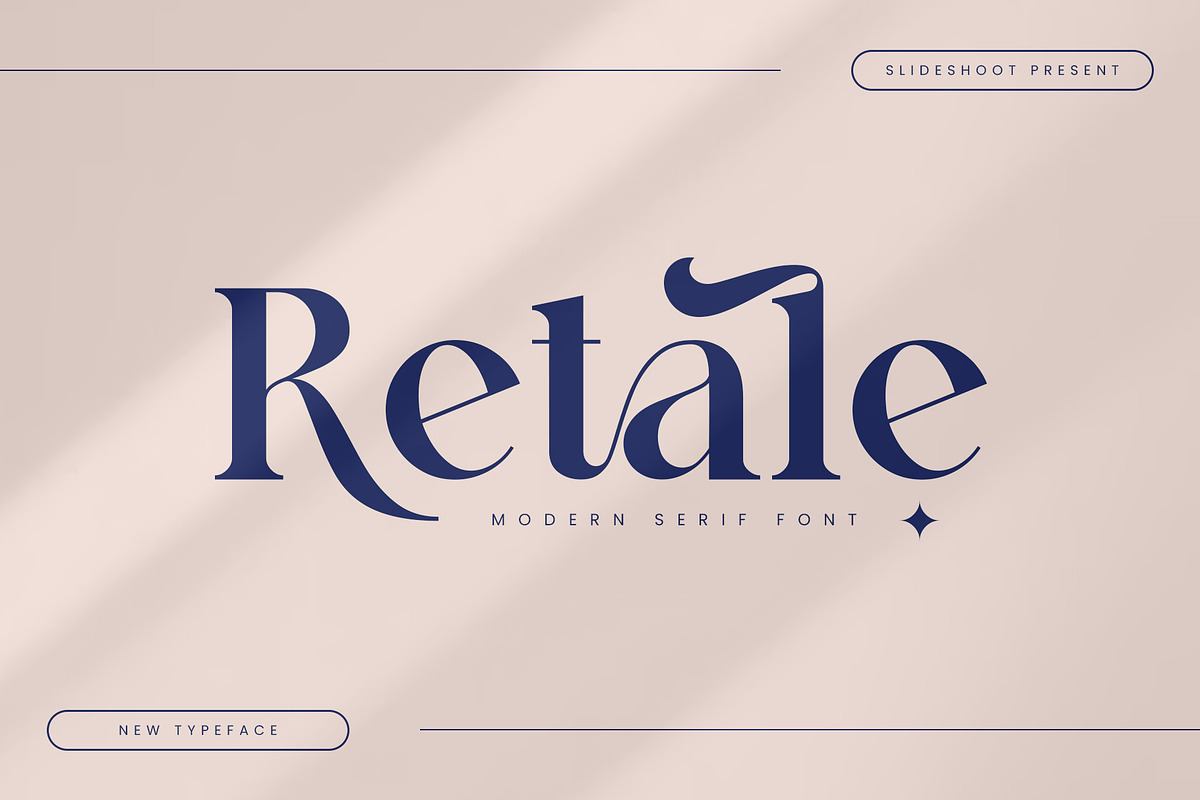
Retale Modern Serif Font Free Download
Retale – Modern Serif Font Free Download is a refined and contemporary typeface that merges classic serif elegance with a clean, modern aesthetic. With its stylish curves, high contrast, and sharp details, Retale is perfect for branding, editorial layouts, website headers, luxury packaging, and fashion-forward designs.
This font delivers both professionalism and personality, making it an excellent choice for designers who want to create a bold, upscale visual identity. Whether you're crafting a boutique logo or designing a magazine cover, Retale adds confidence and sophistication to your typography.